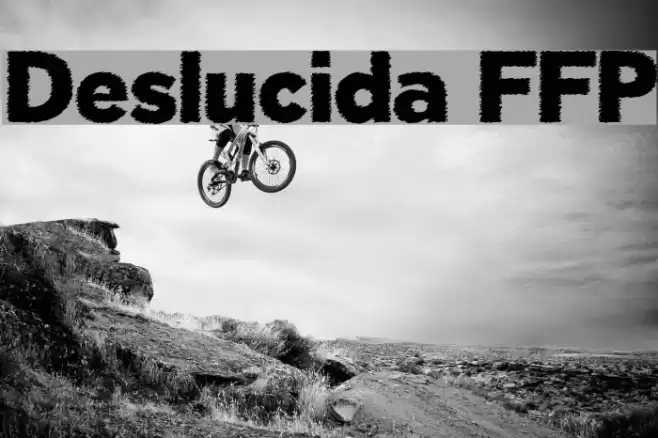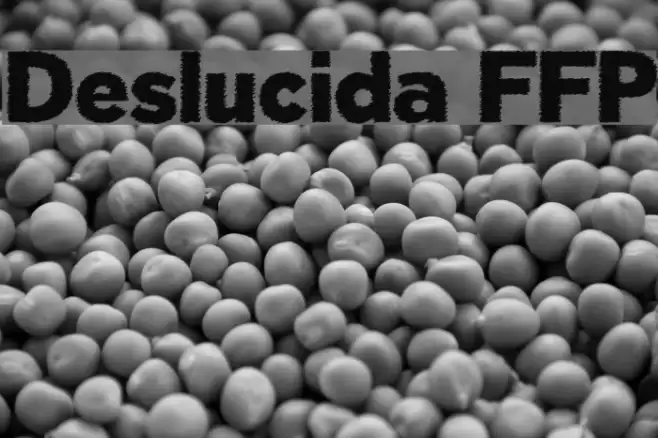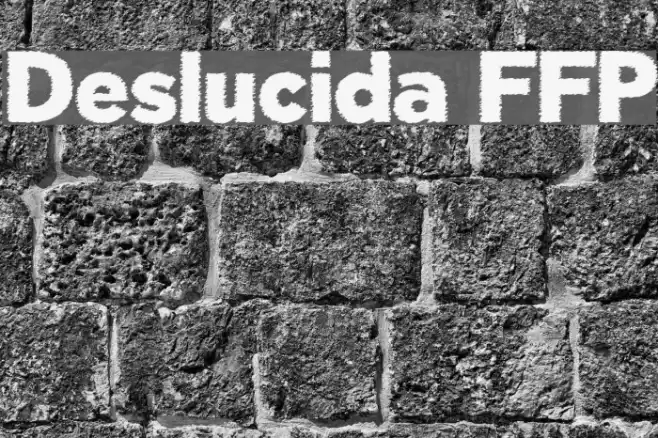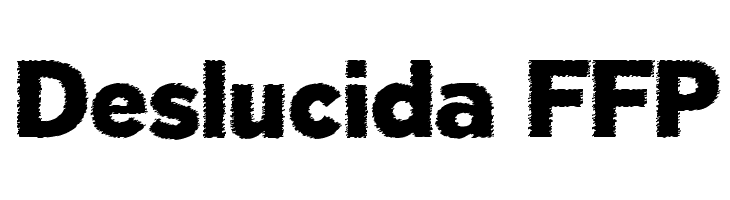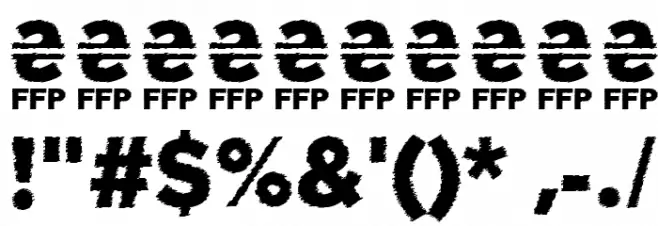
Deslucida FFP Font
Deslucida FFP Description
This font features a bold and textured style, characterized by a rough, jagged edge that gives it a dynamic and energetic appearance. The uppercase and lowercase letters maintain a consistent weight, contributing to a cohesive look. The numerals and special characters follow the same design principles, ensuring uniformity across all glyphs. The font's unique texture makes it stand out, adding a sense of movement and vibrancy. It is well-suited for projects that require a bold statement or an artistic touch.
A bold, textured font with a dynamic, jagged edge.
- Proposed Projects: Ideal for posters, album covers, branding, and creative projects that require a bold, artistic flair.